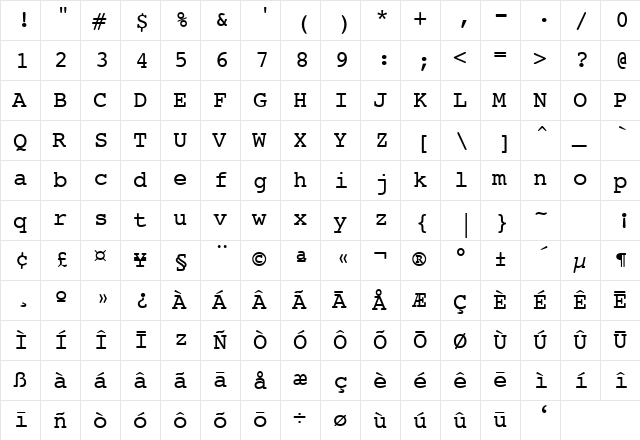
HI Kakuhihewa Plain
Design Context for HI Kakuhihewa Typeface
HI Kakuhihewa offers clean, dependable letterforms without strong stylistic allegiance, making it a practical choice for designers who need flexibility.